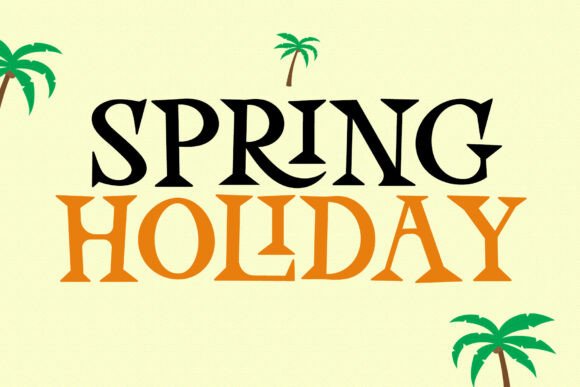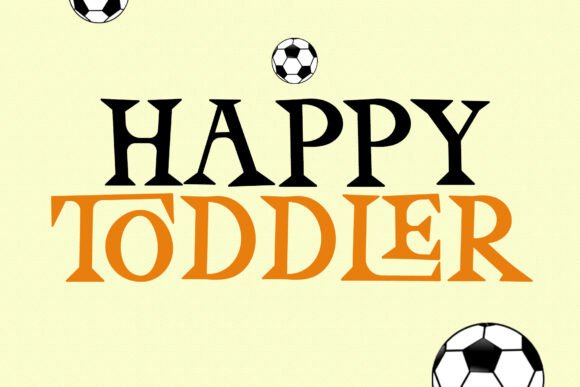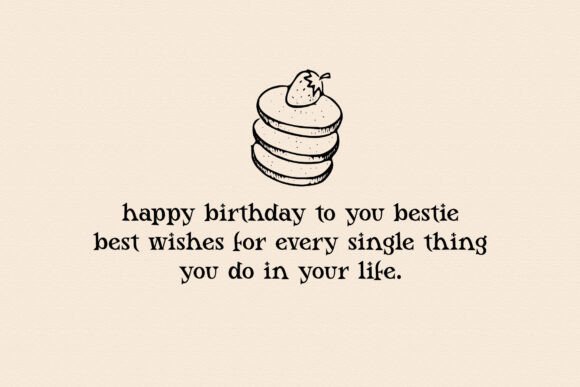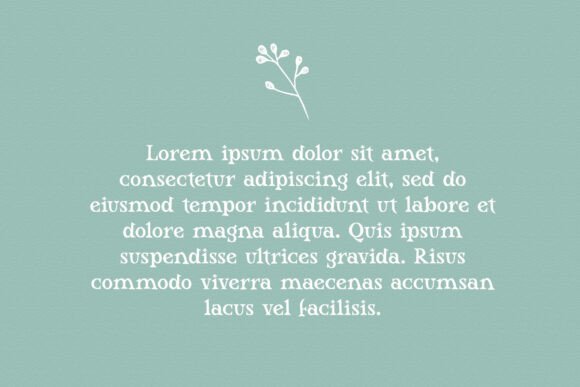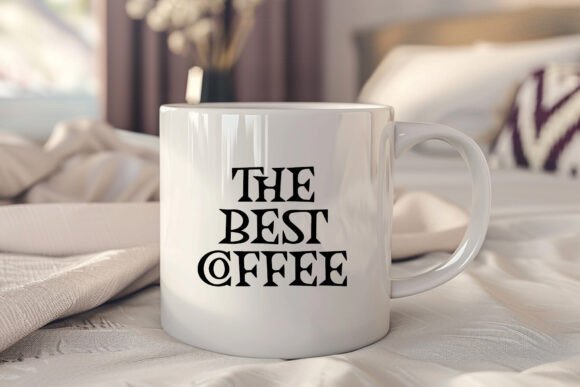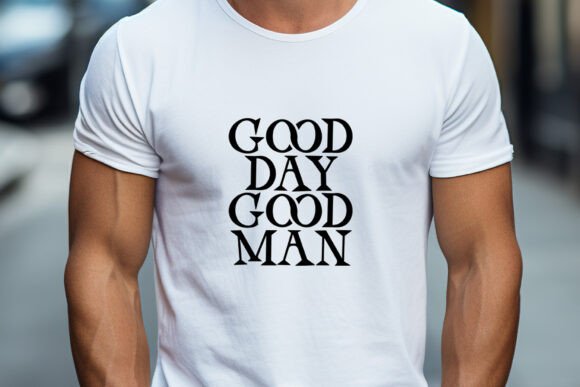
Introduction to Moist Orange Font
As I sat at my desk, surrounded by scraps of paper and paint swatches, I was on the hunt for the perfect font to match my playful design concept. I wanted something that would radiate fun and happiness, something that would make my creative project pop. And then, it hit me – the Moist Orange Font. This adorable serif font is more than just a pretty face; it’s a design game-changer.
With its cute style and few ligatures, Moist Orange Font is the perfect addition to any design resource. Whether you’re working on a t-shirt design, a logo, or a display, this font is sure to bring a smile to your face. And the best part? It’s available for free download, making it an accessible high-quality design tool for creatives of all levels.
Key Features of Moist Orange Font
- Unique, high-quality font design ideal for creative projects and design resources
- Available for free download in a transparent background format, perfect for use in various design applications
- Includes a range of characters and glyphs, including uppercase and lowercase letters, numbers, and punctuation marks
- High-resolution font, suitable for use in print and digital design projects at resolutions up to 300 DPI
- Moist Orange Font is a versatile design resource suitable for a variety of creative projects, from branding and marketing materials to editorial and publishing projects
Honest Review: Moist Orange Font
As a designer, I’m always on the lookout for unique and high-quality design resources to elevate my creative projects. The Moist Orange Font caught my attention, and I was excited to give it a try.
What works well: ✨ The font is incredibly versatile and can be used for a variety of projects, from headings to body text. Its modern and sleek design makes it perfect for creating a professional and cohesive look. I also appreciate that it’s available as a free download, making it easily accessible to designers of all levels.
The font’s high quality is evident in its smooth lines and consistent spacing. It’s also fully scalable, making it ideal for use in presentations, brochures, and other design materials. Additionally, the transparent background option allows for seamless integration with other design elements.
- Modern and sleek aesthetic
- Scalable for various design materials
Limitations: ⚠️ While the font is generally well-suited for most projects, it may not be the best choice for very small or detailed text due to its modern and simplistic design. Additionally, some users may find the font too bold or overpowering.
Overall, I’m impressed with the Moist Orange Font and would recommend it to designers looking for a high-quality and versatile font for their creative projects.
To get the most out of the Moist Orange Font, use it for creative projects that require a unique and eye-catching design. Some common use cases include social media graphics, promotional materials, and branding elements. Remember to experiment with different font sizes, colors, and combinations to find the perfect look for your project.